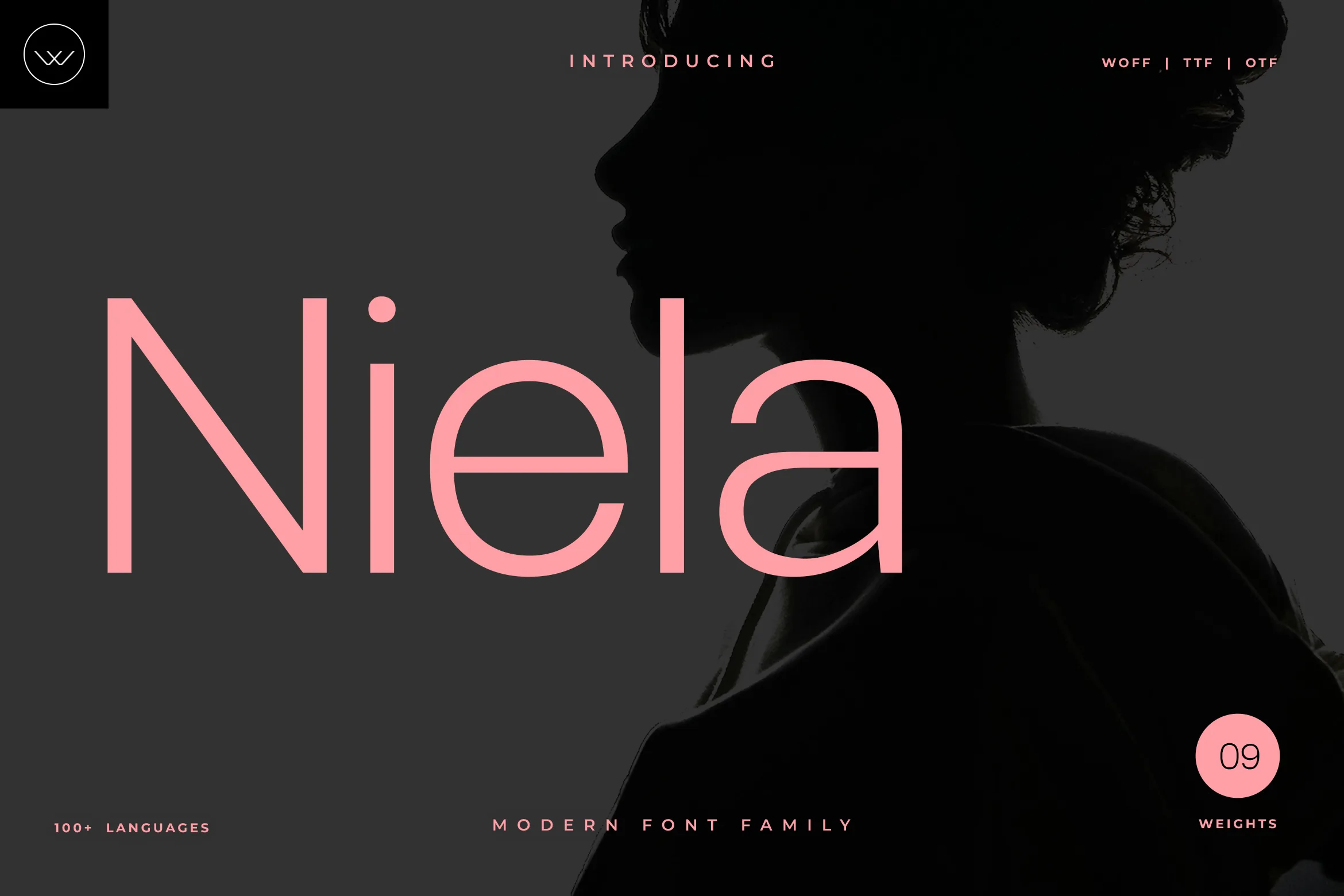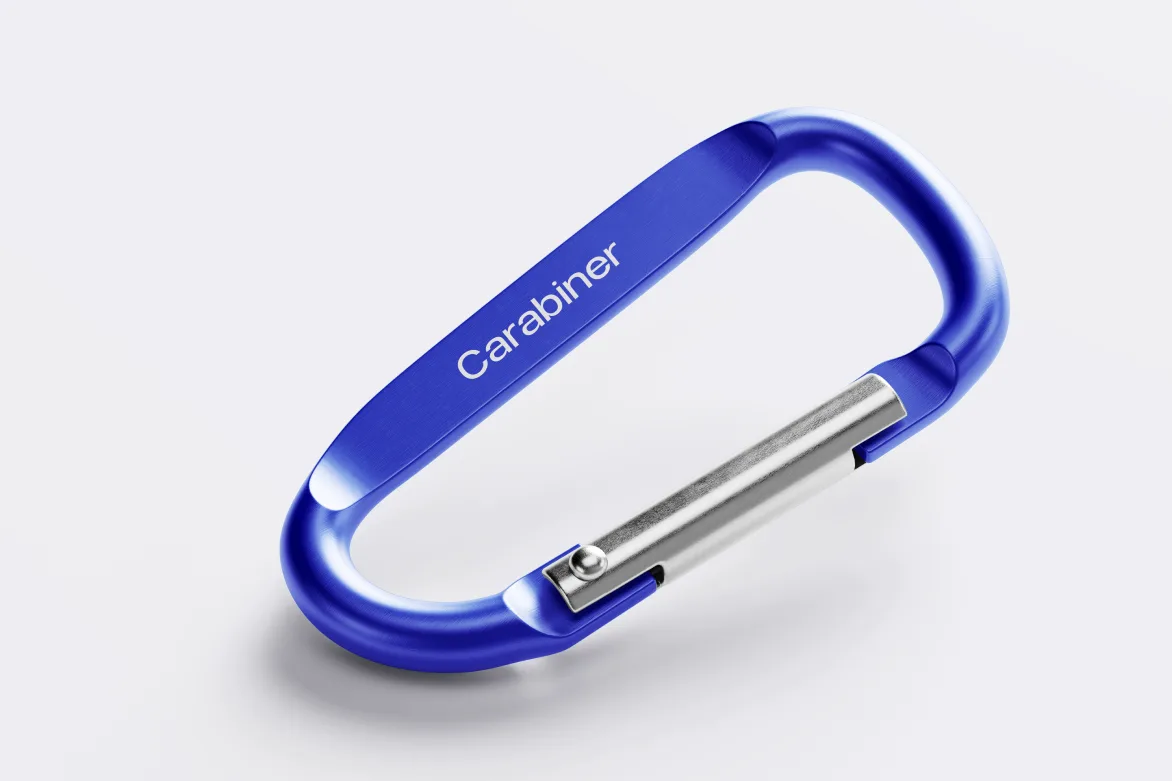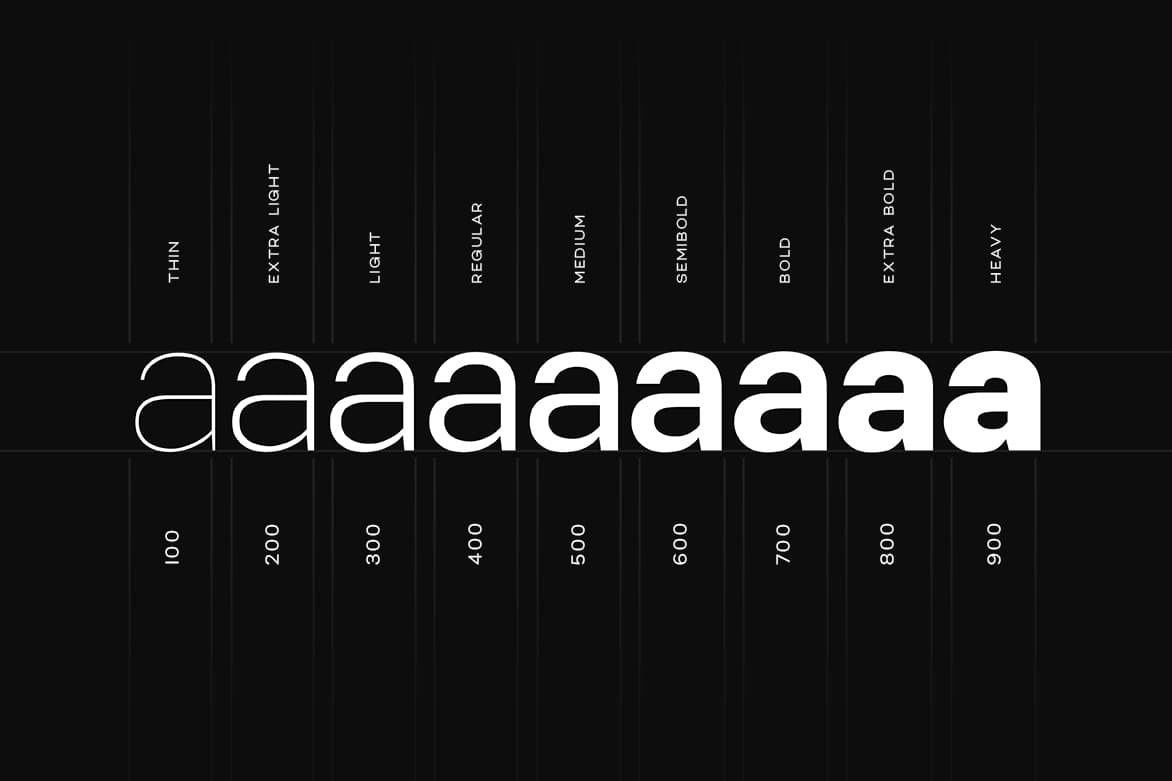
Niela
Introducing Niela, a modern and minimal sans-serif font family crafted for designers who value clarity, balance, and a clean visual rhythm. Built with a smooth geometric structure and refined details, Niela brings a calm and contemporary presence to every layout.
This family includes 9 perfectly tuned weights, from the soft Thin to the strong Black, giving you full freedom to create thoughtful visual hierarchy. Each weight is designed with consistent proportions and strong readability, making it reliable for both print and digital work.
Niela works beautifully for branding, logos, website interfaces, posters, magazine layouts, product packaging, social media posts, reels text, YouTube thumbnails, and motion graphics. Its simple forms and precise curves allow it to blend into modern design systems with ease.